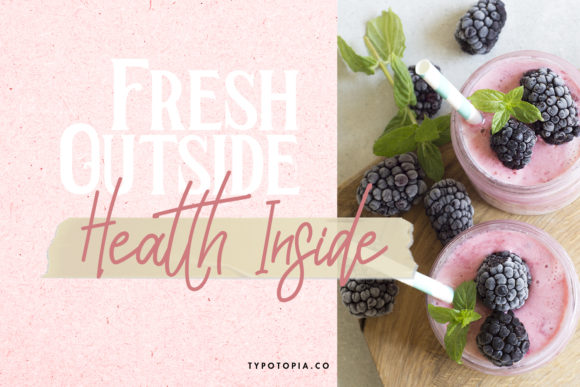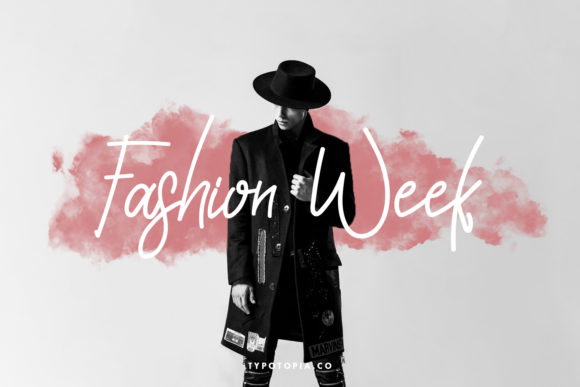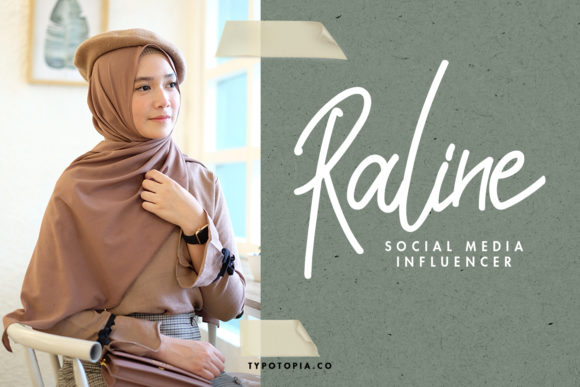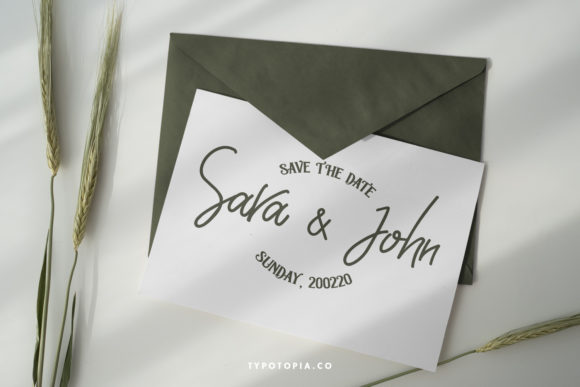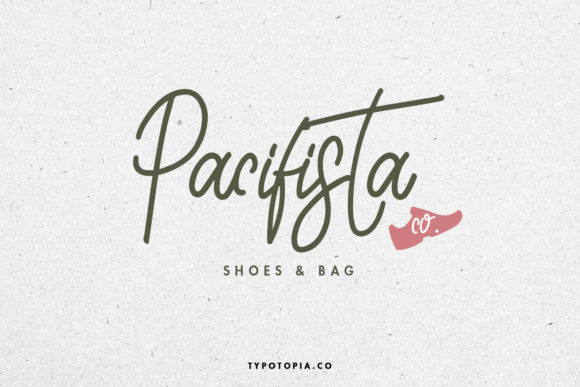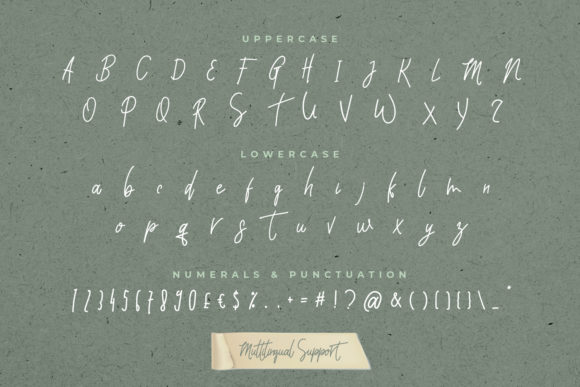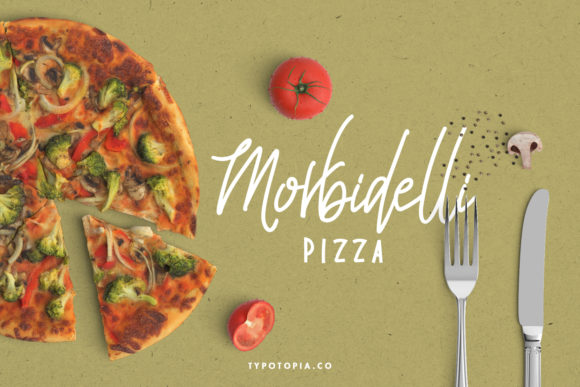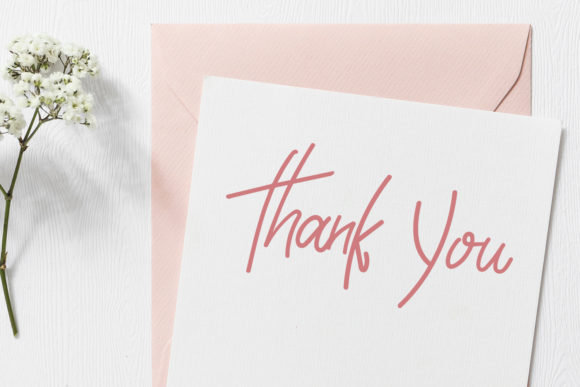
Foxtail Font
About Foxtail Font
“Introducing Foxtail,” a flowing handwritten font that captures the essence of elegance and timelessness. Its graceful touch makes it a perfect choice for a wide range of creative endeavors, allowing you to infuse your favorite projects with a sense of charm and sophistication. Whether you’re working on branding, quotes, invitations, or any other project that requires a touch of elegance, Foxtail invites you to embrace its unique style and create designs that truly stand out.
Foxtail’s allure lies in its flowing and graceful strokes, which convey a sense of effortless beauty. Its distinct style seamlessly combines elegance with a contemporary flair, making it a versatile choice for various design contexts. Whether you’re designing exquisite wedding invitations, sharing meaningful quotes, or enhancing your branding, this font adds a layer of sophistication that resonates deeply.
The timeless quality of Foxtail ensures that it can adapt to different design styles and themes with ease. Its ability to evoke both elegance and modernity makes it a valuable asset for a wide spectrum of creative projects seeking to make a lasting impact.
Witness how Foxtail enhances your designs with its flowing and elegant touch. Whether you’re crafting exquisite logos, designing captivating social media graphics, or producing eye-catching visuals, this font will infuse your work with a sense of grace and allure that captivates the viewer.
Embrace the charm of Foxtail and let it become an integral part of your design toolkit. Allow its flowing and timeless style to inspire your creations, transforming them into spectacular works that radiate elegance and beauty. Whether you’re a seasoned designer or an aspiring enthusiast, Foxtail empowers you to craft visuals that exude sophistication and leave a lasting impression. Let Foxtail be the key to unlocking the beauty of flowing handwritten typography in your designs, and watch as it elevates your projects to new heights of excellence and timeless allure!